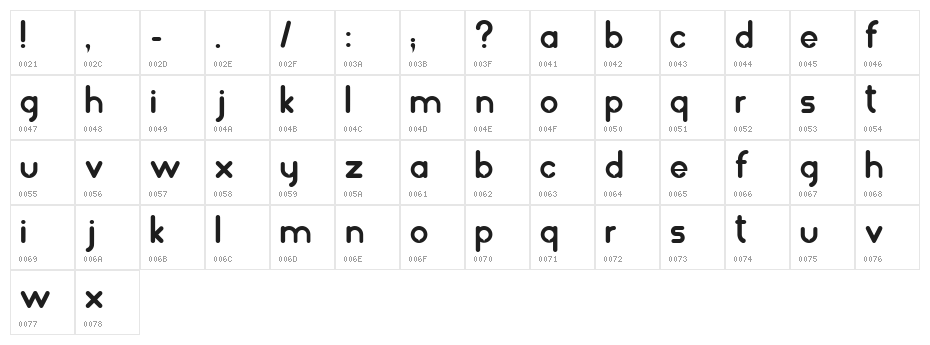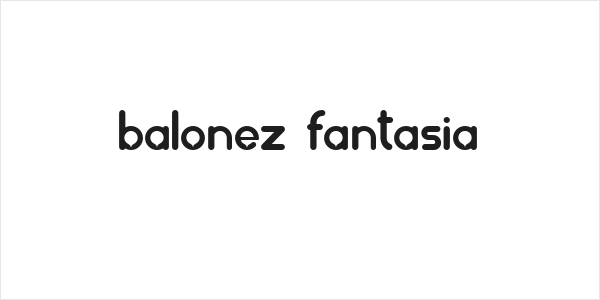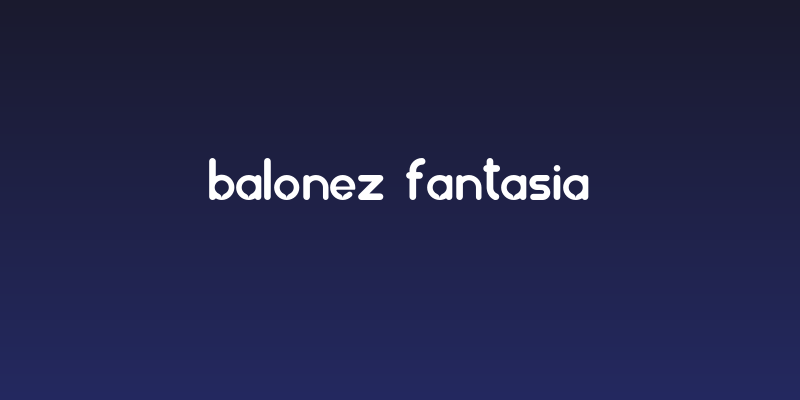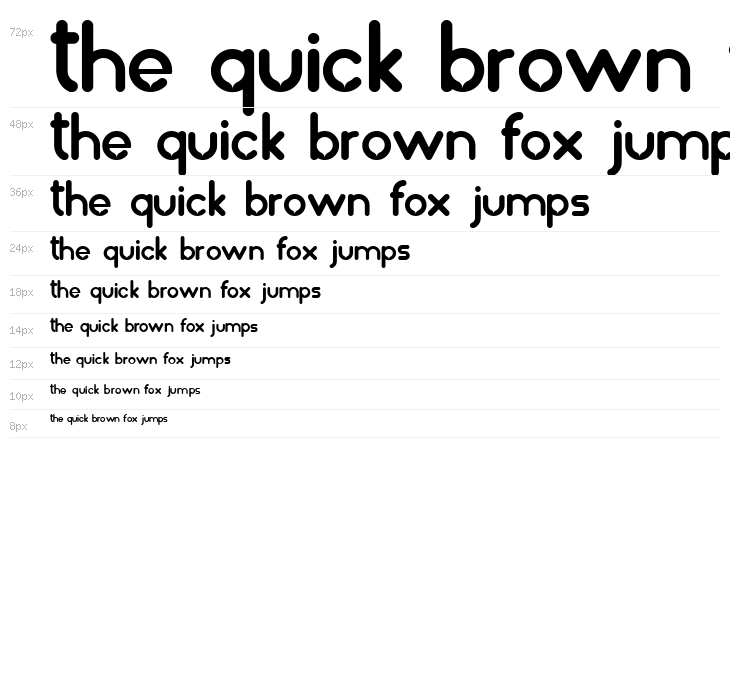
balonez fantasia Font
balonez fantasia Description
This font features a playful and rounded design, characterized by its smooth curves and consistent stroke width. The letters are bold and have a friendly appearance, making them suitable for casual and informal contexts. The rounded terminals and uniform line thickness give it a cohesive and approachable look. The font maintains a consistent baseline and x-height, ensuring readability while adding a touch of whimsy. Its design is modern yet retains a classic feel, making it versatile for various design needs.